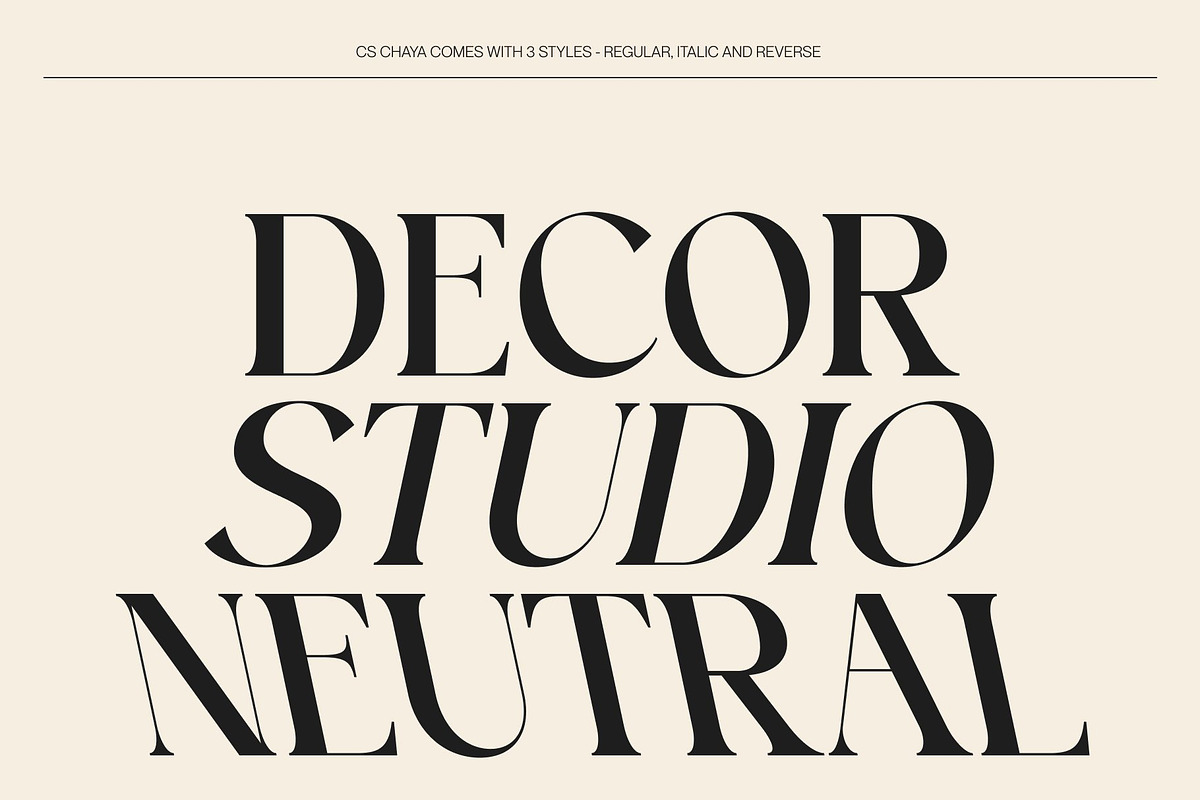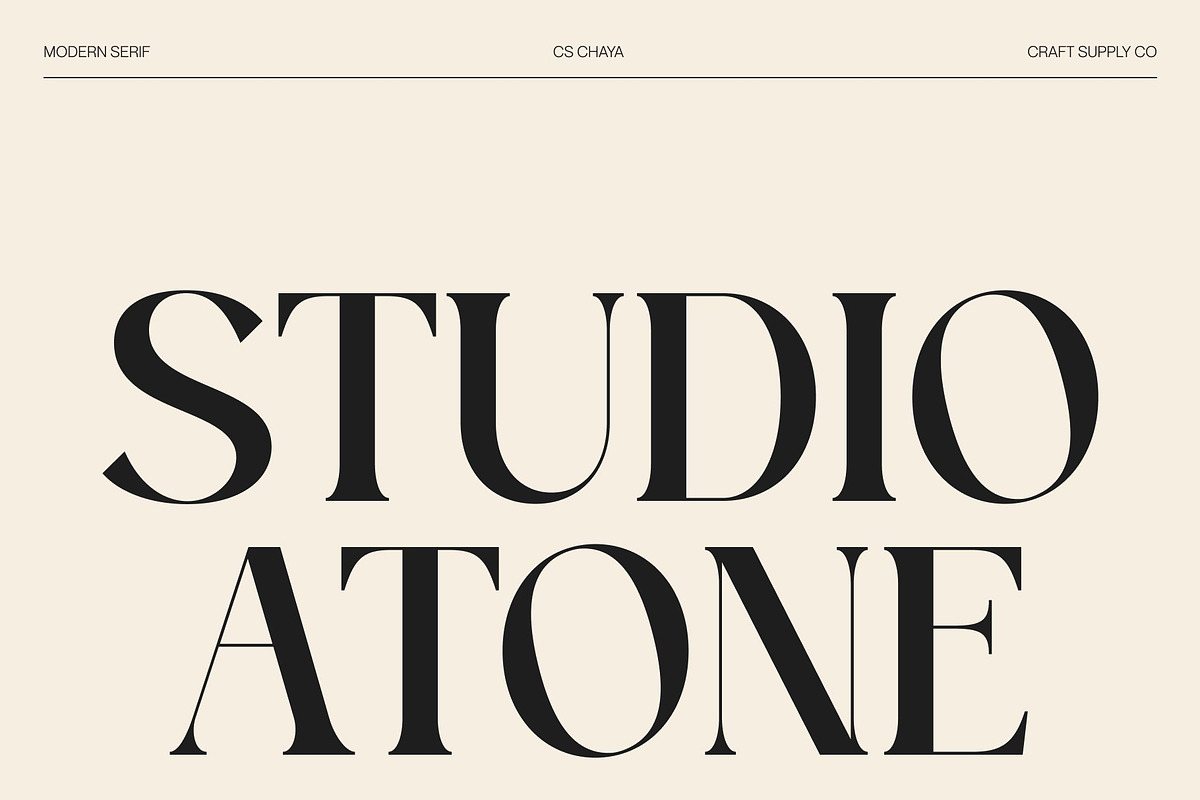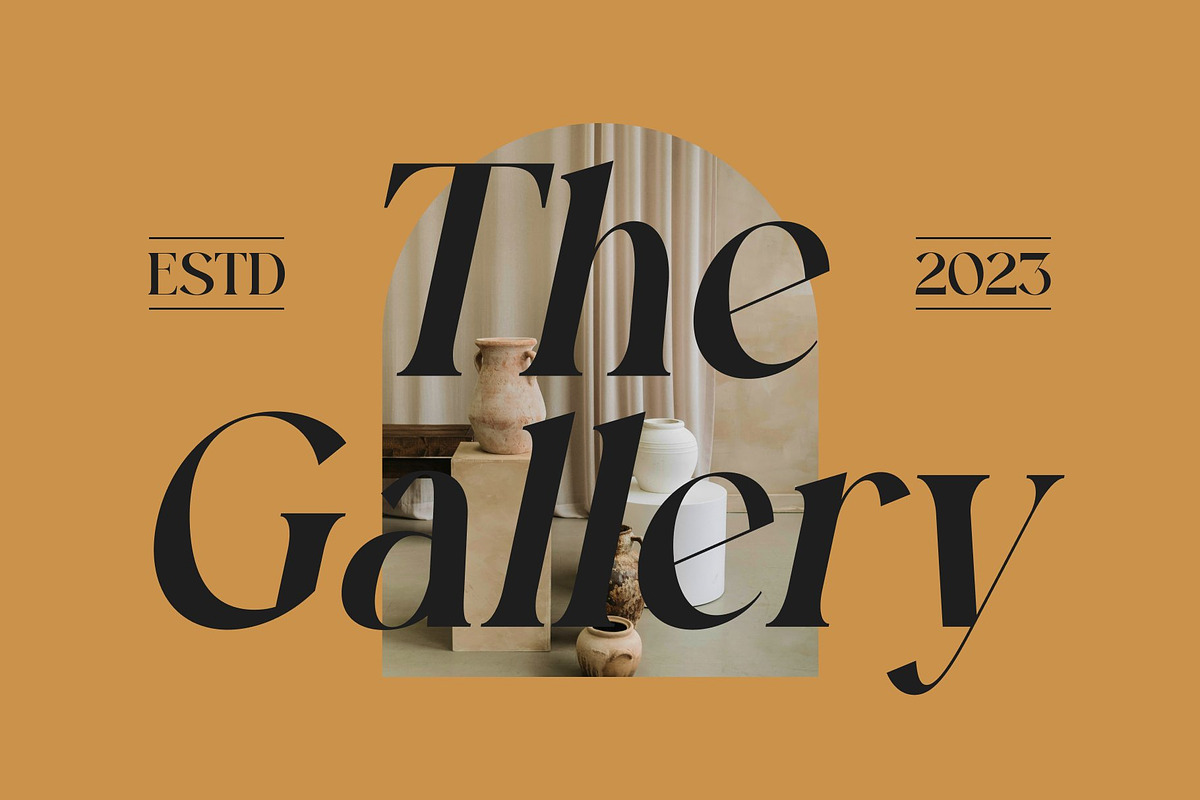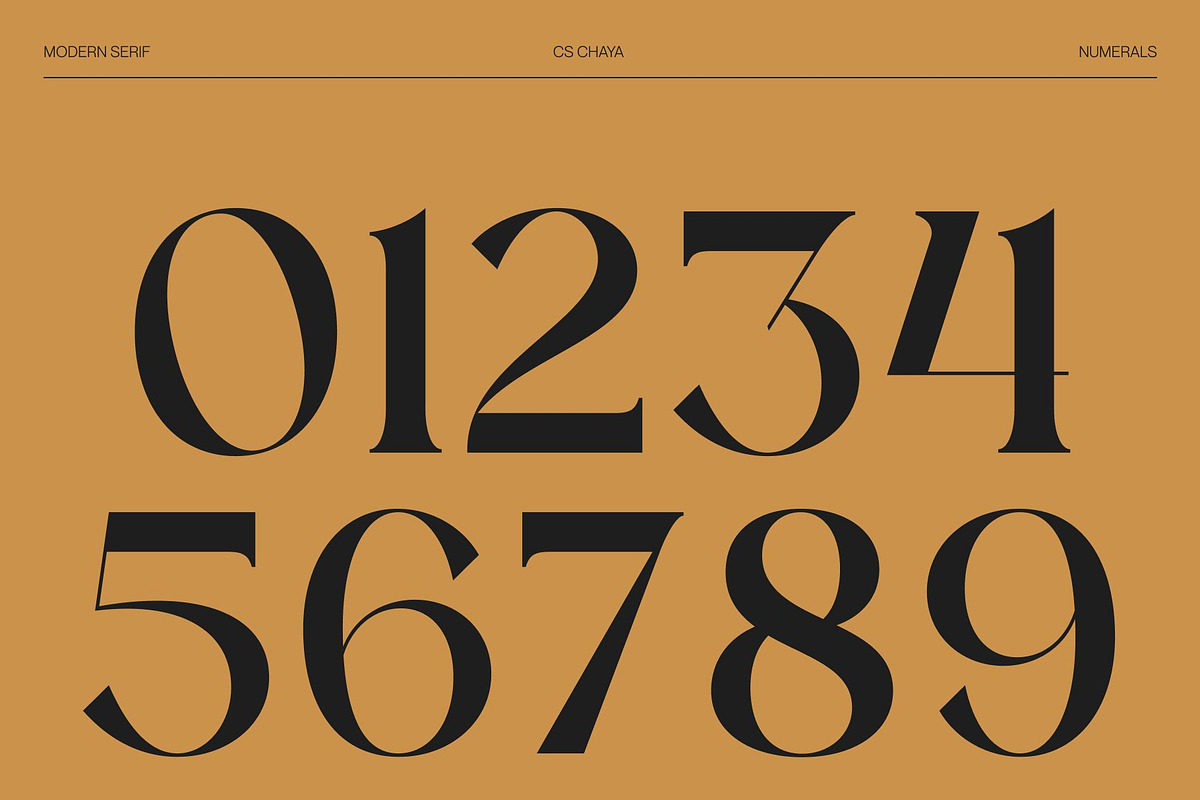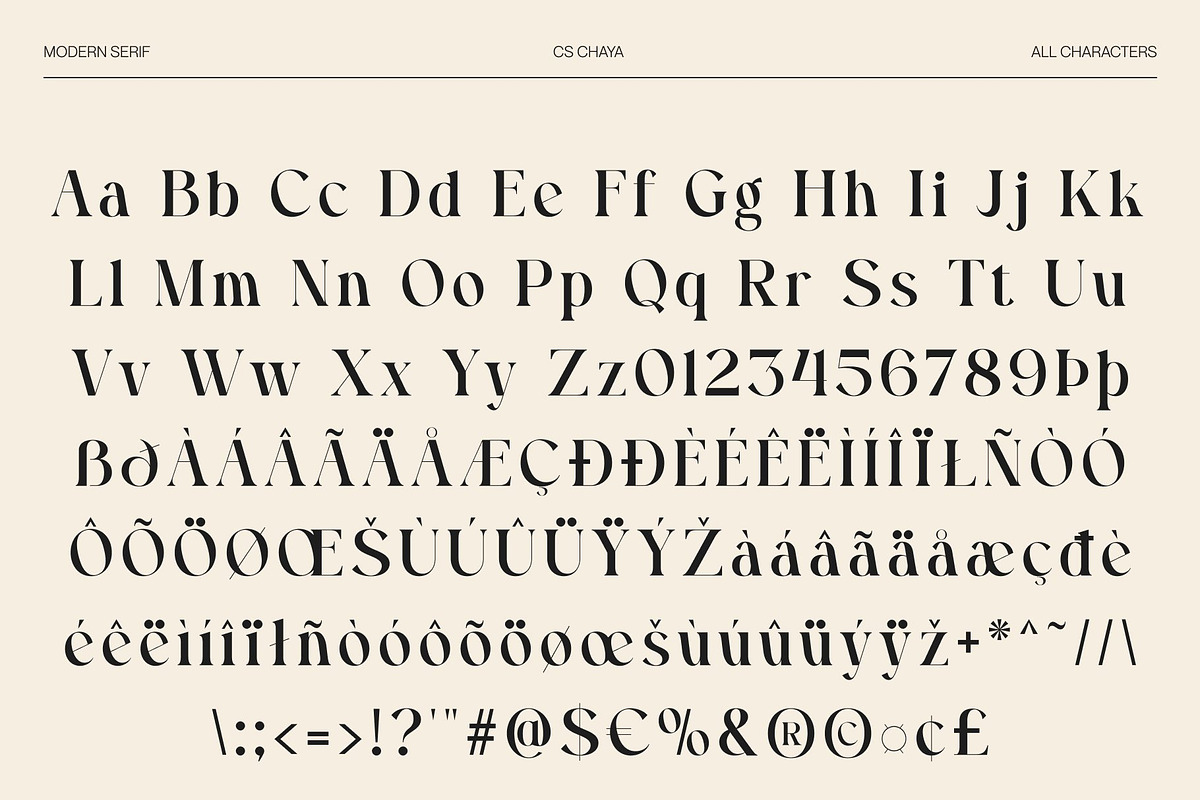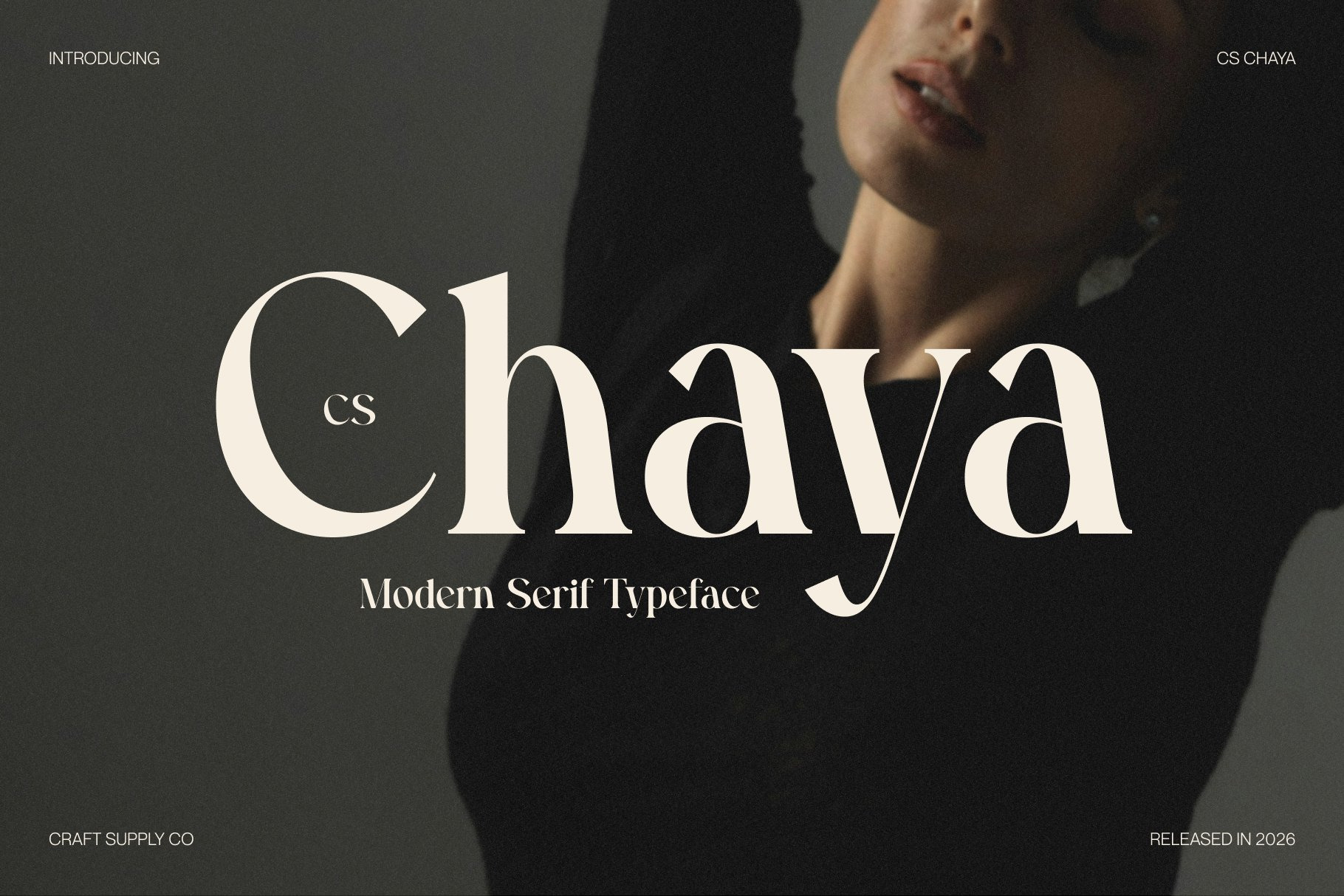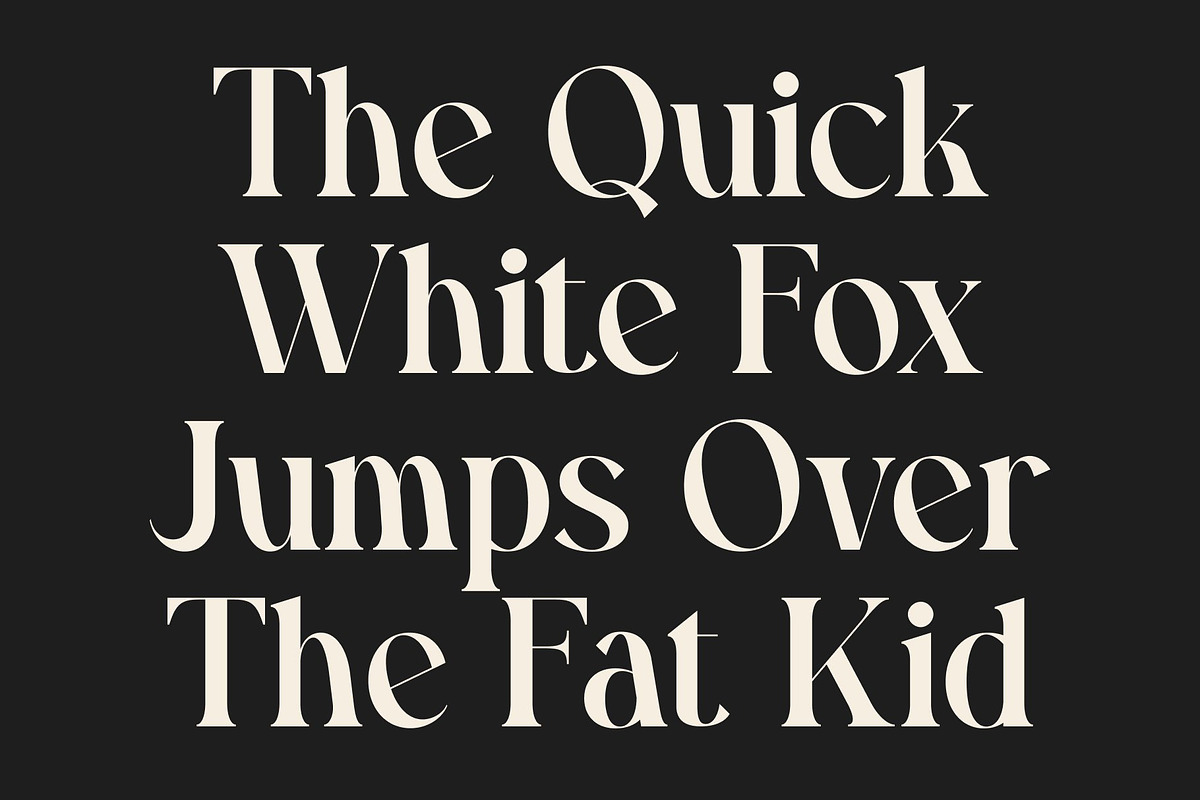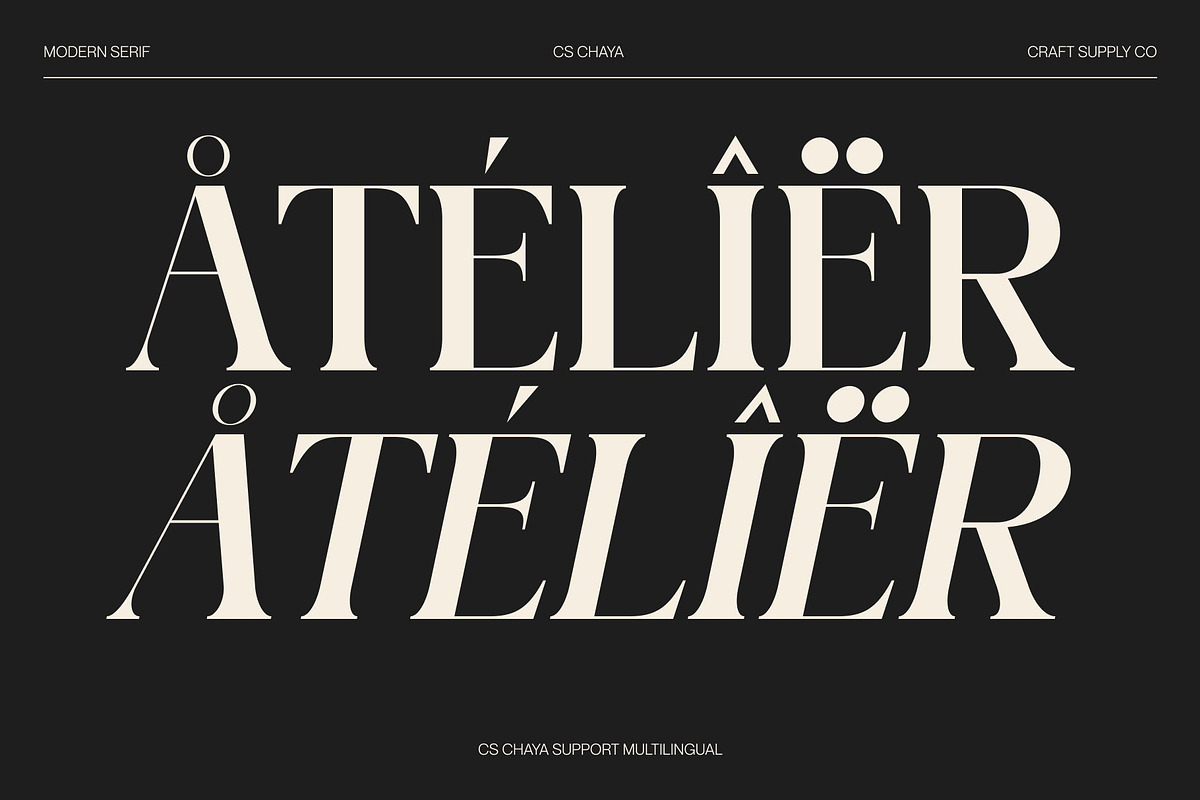
CS Chaya – Modern Serif Font
CS Chaya – Modern Serif with Timeless High-Contrast Elegance
Modern Serif with Refined Elegance This is a modern serif font designed to express elegance through clean structure and timeless proportions. Its refined letterforms combine classic serif principles with a contemporary sensibility, resulting in a typeface that feels sophisticated, polished, and confidently modern. Every character is crafted to deliver beauty and clarity in high-end design contexts.
High Contrast with Contemporary Style The high-contrast strokes of this font create a striking visual rhythm that elevates its elegant appearance. This contrast adds drama and refinement, allowing the font to stand out while maintaining a graceful balance. The modern detailing ensures the typeface feels fresh and stylish, perfectly suited for contemporary visual storytelling.
Timeless Beauty with Sophisticated Character This font balances modern design with timeless appeal, making it a reliable choice for long-lasting branding and editorial work. Its elegant curves and sharp transitions communicate sophistication and luxury without feeling excessive. The overall aesthetic feels confident, fashionable, and visually refined.
Perfect for Fashion and Editorial Design Ideal for fashion branding, posters, and editorial layouts, this font excels in headlines, titles, and premium typography. Whether used in fashion campaigns, magazine spreads, or luxury branding, it delivers a modern, high-contrast elegance that enhances visual impact and communicates beauty and sophistication with ease.
- CS Chaya Regular
- CS Chaya Italic
- CS Chaya Reverse Italic